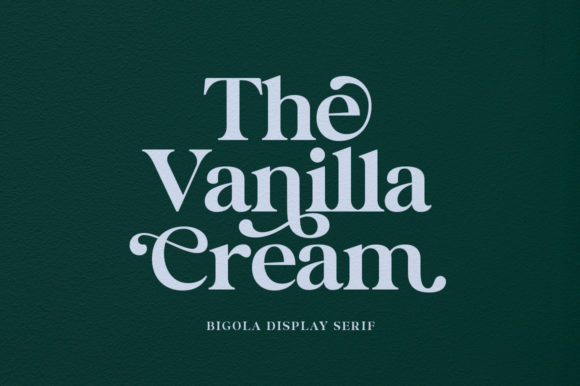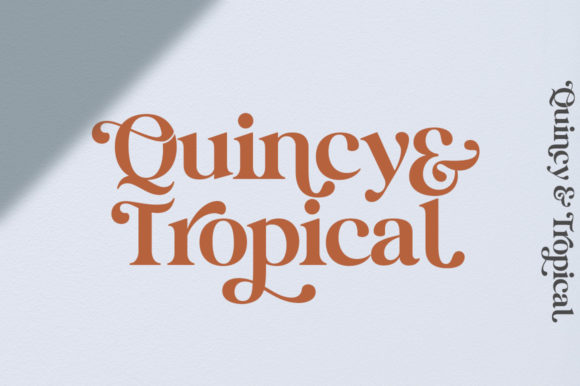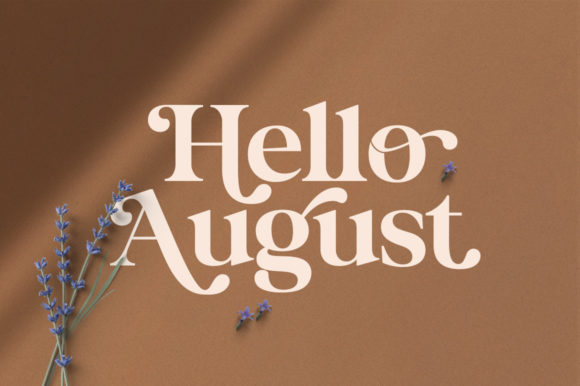
Bigola Font
Bigola is a cool, bold and trendy lettered display font. It is PUA encoded which means you can access all of the glyphs and swashes with ease!